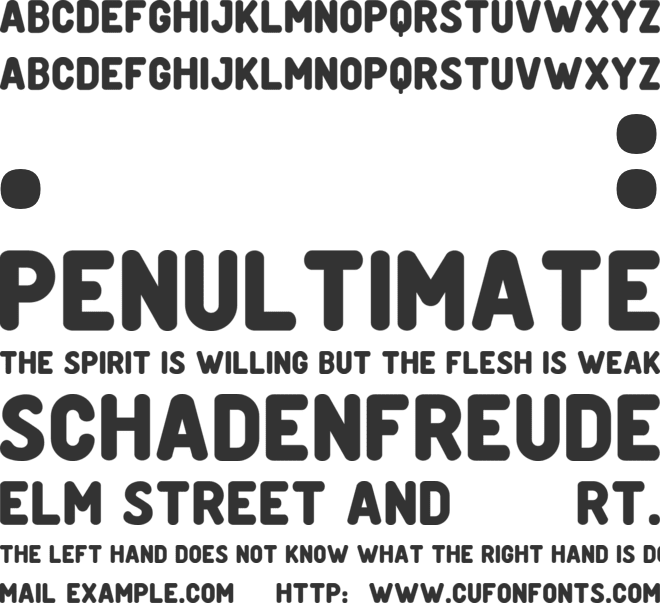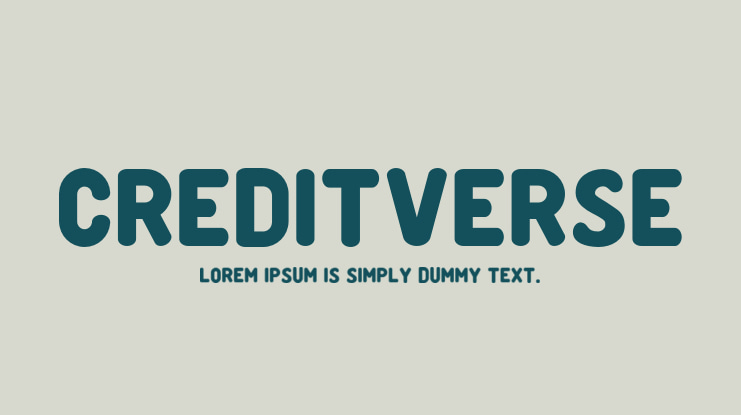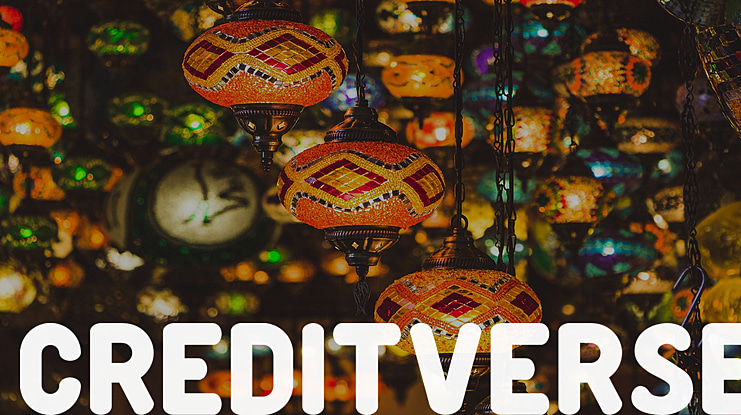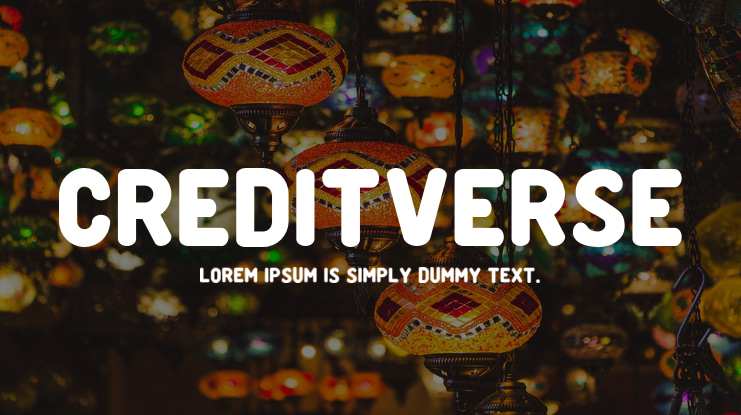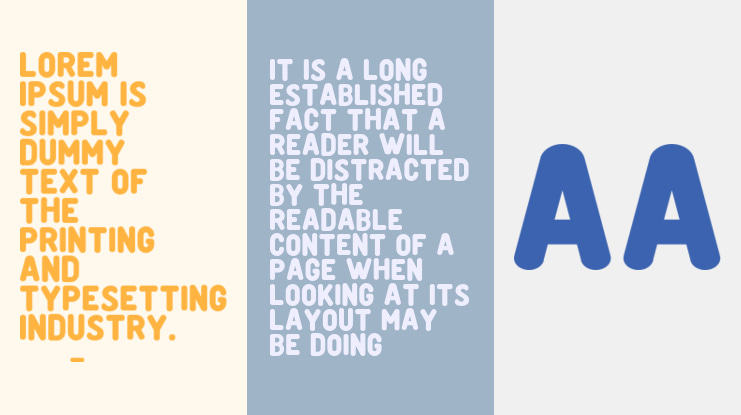
Creditverse Font
Creditverse is a font that replicates the one used for the end credits of the TV show Steven Universe.
PLEASE NOTE THAT I AM NOT GOING TO MAKE NUMBERS FOR THE FONT, ONLY UPPERCASE LETTERS.